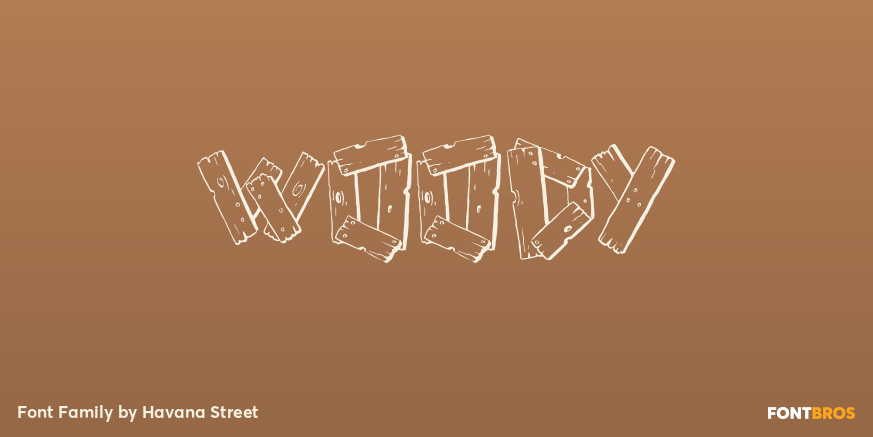
Woody
About Woody
Yee Haw Pardners! Meet Woody the roughest ridin\’ rootin\’ tootin\’ dern wood typeface we ever laid eyes on! Previously available only from the hand of the artist, Havana Street has brought original 1940s style Hollywood hand-lettered, movie poster-type…